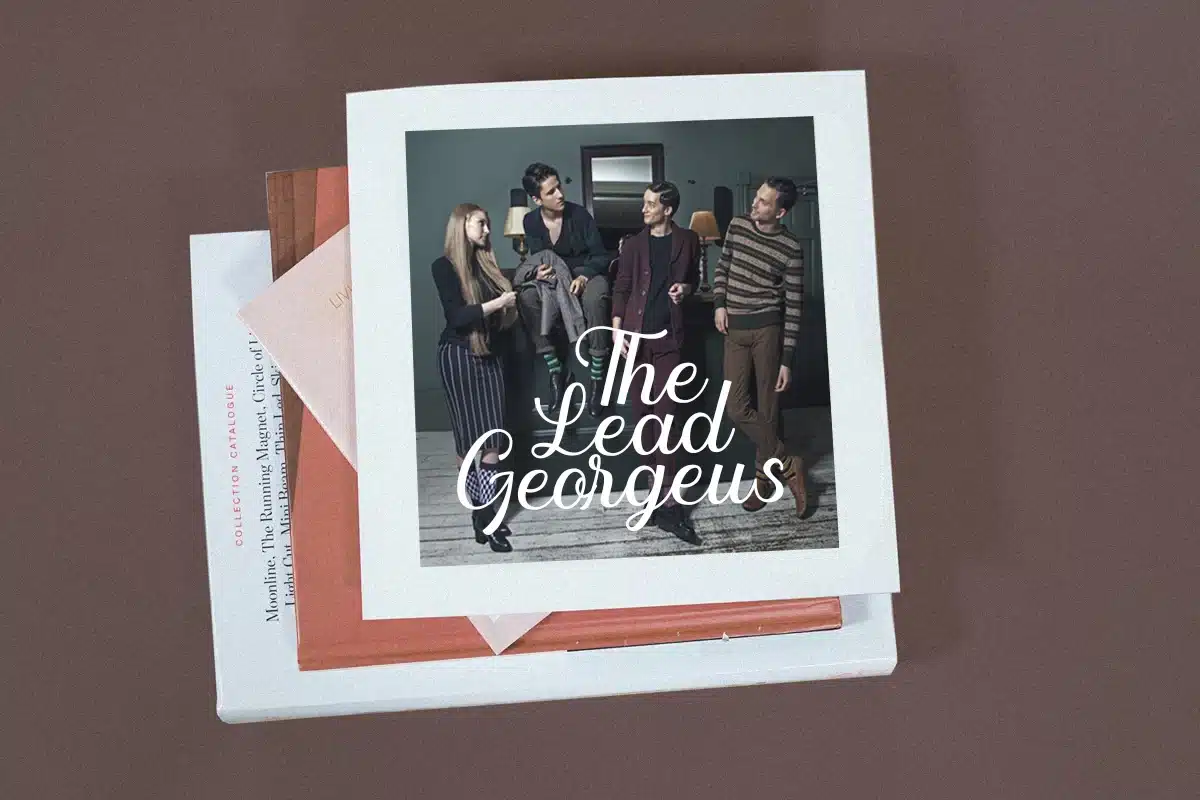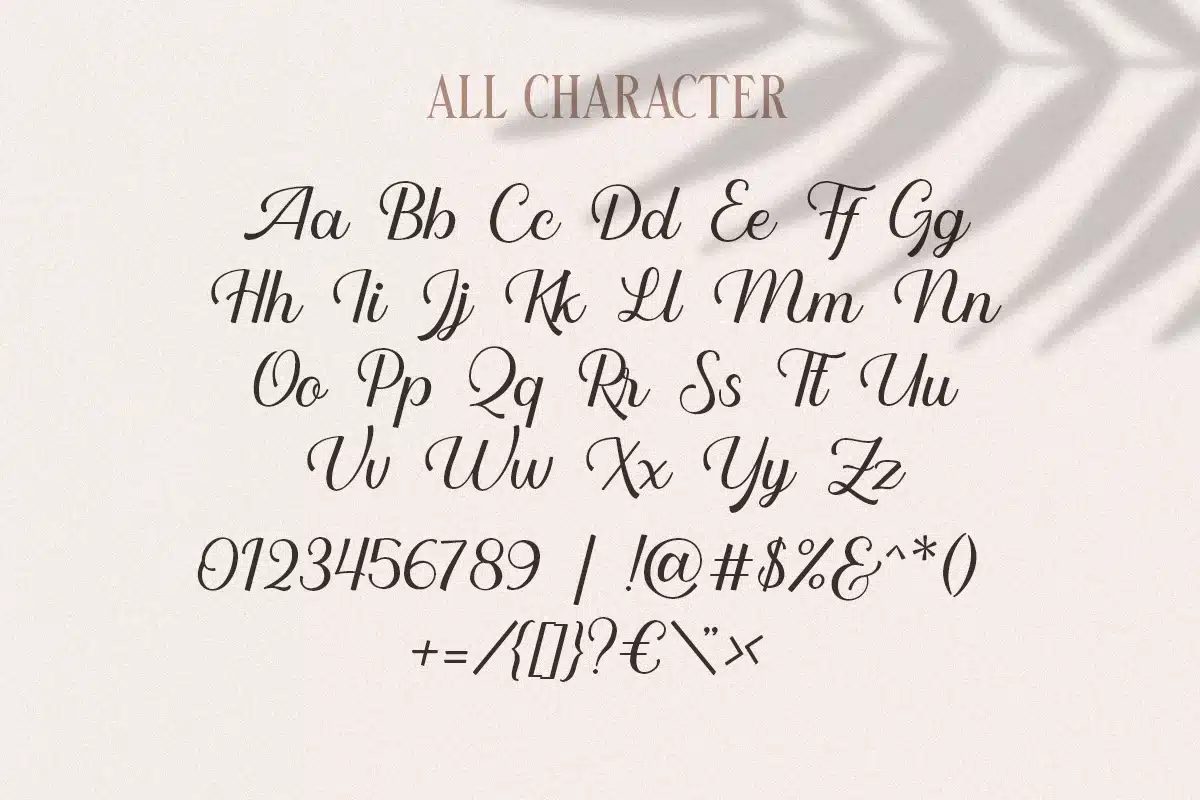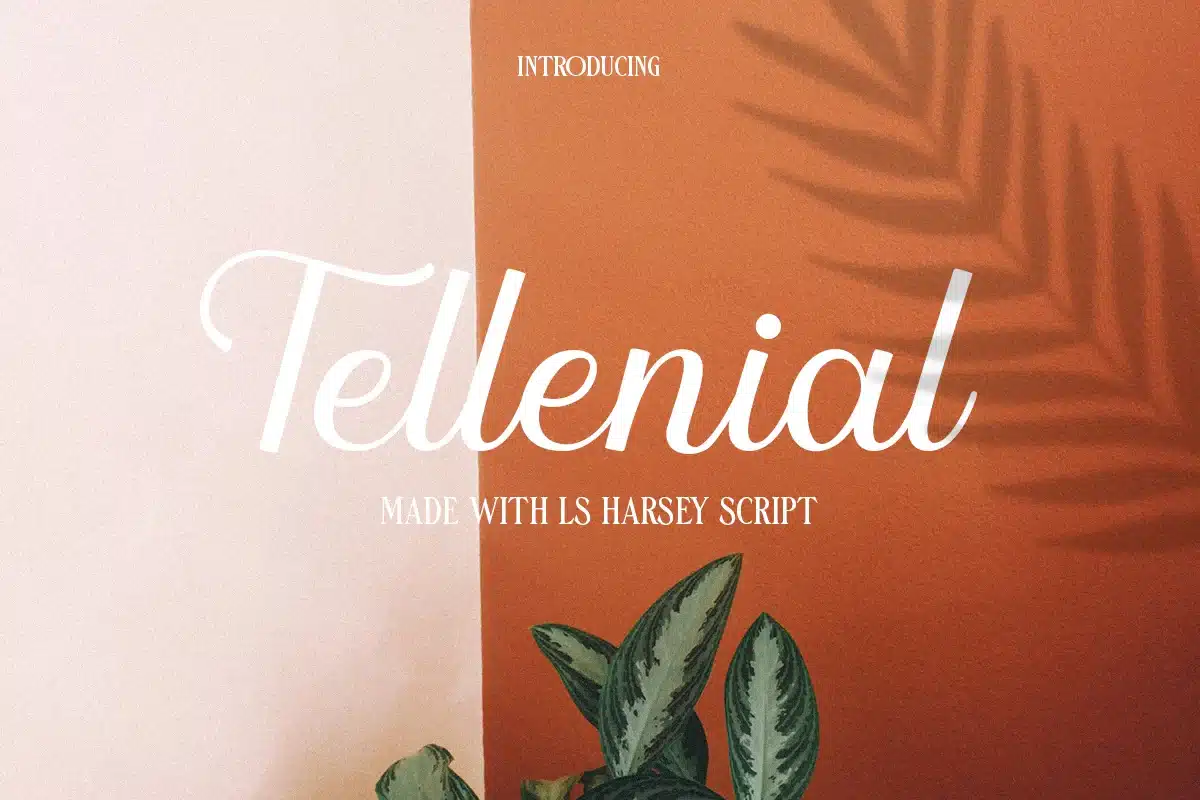
LS Harsey Script Font
Introducing, LS Harsey Script. A classy and elegant script typeface. This item is really perfect for you who needs a typeface for especially logotype, apparel, invitation, branding, packaging, advertising etc. This typeface has features :
- Uppercase, lowercase, punctuations
- Symbols & numerals
- Stylistic set alternate